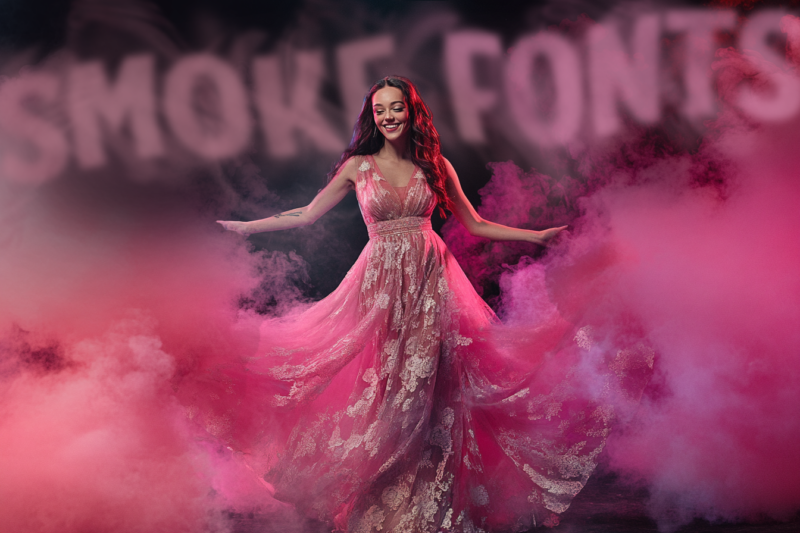
Throughout my 20 years as a designer, I’ve worked with countless specialty fonts, but there’s something particularly mesmerizing about smoke fonts. The way they capture the ethereal, flowing nature of smoke while maintaining readability is a testament to brilliant type design.
Whether you’re creating a movie poster, designing for a vape shop, or just want to add some mysterious atmosphere to your next project, choosing the right smoke font can transform your design from mundane to captivating. Let’s dive into the smoky depths of these fascinating typefaces.
Bakar
A unique sans-serif decorative font featuring flaming effects that create dynamic movement in the letterforms. Perfect for music-related projects and invitations requiring a fiery aesthetic.
Vintage Smoked
A collection of fonts featuring smoky, aged effects that add depth and character to typography. The weathered design elements create an authentic vintage atmosphere while maintaining readability.
Alapaap
A dreamy typeface that captures the essence of clouds and atmospheric elements in its design. The font’s flowing forms create a sense of lightness and movement, making it ideal for ethereal designs.
White Smoke Editable Text Effect
A customizable Photoshop text effect that creates realistic smoke emanating from letters. This effect allows designers to create atmospheric typography with authentic smoke characteristics.
Heatware
A bold advertising font with dramatic flaming effects integrated into each character. The brush-style elements combine with fire aesthetics to create high-impact designs perfect for attention-grabbing advertisements.
Clodice Vintage
A decorative font featuring bubble-like elements that create a distinctive vintage atmosphere. The versatile design combines retro styling with modern clarity for broad application possibilities.
Iceberg
A cold, unique display typeface that brings a frozen aesthetic to sans-serif letterforms. The design incorporates crystalline elements perfect for creating cool, sophisticated logos and display text.
Smoke Text Effect
A Photoshop text effect template that transforms typography into billowing smoke. The effect provides realistic smoke simulation perfect for creating mysterious and dramatic text compositions.
Scary Dream
A Halloween-inspired horror font that embodies creepy and unsettling qualities in its design. The font features distressed elements and eerie characteristics that make it perfect for horror-themed projects and spooky designs.
Smoke Attack
A dynamic script font that incorporates smoke-like effects into its brush-style letterforms. The display-oriented design creates a sense of movement and energy perfect for dramatic typography.
Foam or Clouds
A colorful SVG font that brings life to typography through cloud-like shapes and foam textures. The decorative sans-serif design offers unique possibilities for creating atmospheric text effects.
Cloudy Sunday
A 90s-inspired retro display font that captures the essence of cloudy, dreamy aesthetics. The design combines nostalgic elements with modern display features for a unique typographic statement.
Zombified
A horror-themed sans-serif font designed to create spooky and unsettling typography. The font’s creepy characteristics make it perfect for Halloween projects and horror-themed designs while maintaining legibility.
Mockey Clown
A playful typeface featuring cloud-like elements that create a whimsical atmosphere. The design combines soft shapes with distinctive character forms for unique display applications.
El Sol
A radiant font design that captures the essence of sunlight and warmth in its letterforms. The font’s distinctive style creates bright, energetic typography perfect for summer-themed and positive messaging projects.
Matches Font
A unique typeface designed to mimic the appearance of arranged matchsticks in each character. The creative construction adds a playful and innovative element to typography while maintaining a coherent design theme.
Spyced
A font that brings heat and spice to typography through its distinctive character designs. The typeface incorporates flame-like elements that create dynamic, energetic text perfect for bold statements.
Blaza Display
A bold display font featuring fiery characteristics that command attention. The dramatic design elements create impact while maintaining readability for headlines and large-format typography.
Rainbow Pow
A colorful bitmap font that creates explosive, energetic typography through its rainbow-colored design. The font’s unique character set offers playful possibilities for creating vibrant, attention-grabbing text effects.
Remember: smoke fonts are powerful design tools, but they need to be handled with care. Use them wisely, and they’ll help you create designs that captivate and entrance your audience.